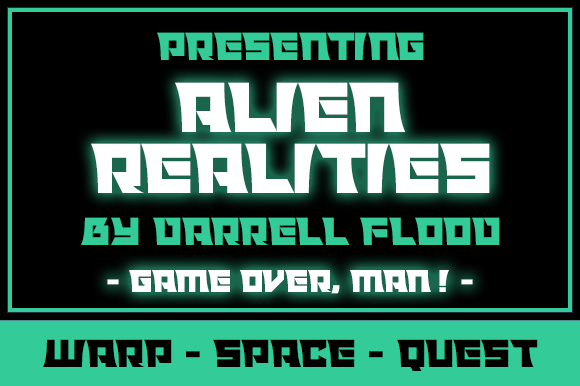
The Birth of a Cosmic Typography
Have you ever found yourself in the middle of a creative frenzy, surrounded by scattered papers, empty coffee cups, and a laptop screen filled with endless possibilities? It’s that magical moment when ideas start flowing, and your imagination runs wild. For designers, this feeling is a familiar companion, and the right tools can make all the difference.
Enter the Alien Realities Font, a bold and chunky charactered display font that’s out of this world. Its futuristic yet simple style makes it the perfect companion for any creative project. Whether you’re designing a sci-fi novel, a futuristic website, or a poster for a space-themed event, the Alien Realities Font is sure to elevate your design game.
This versatile font is a valuable asset for designers, offering a unique and eye-catching visual identity that’s sure to leave a lasting impression. With its bold and chunky style, the Alien Realities Font is perfect for making a statement and adding a touch of extraterrestrial flair to your designs.
- Unique Characteristics: This font features an otherworldly, futuristic design, with a blend of organic and geometric elements that create a truly alien look.
Alien Realities Font Review
Overall, I think the Alien Realities font has some unique qualities that set it apart from other fonts, but it also has some limitations that might make it less suitable for certain projects.
- Its extraterrestrial aesthetic is perfect for sci-fi and futuristic themes, adding a sense of otherworldliness to any project.
- The font’s irregularities and imperfections give it a quirky, handmade feel that’s hard to replicate with more traditional fonts.
- The font’s bold, eye-catching style is great for headlines and titles, grabbing the user’s attention and drawing them in.
- The font’s irregularities can make it difficult to read, especially in larger blocks of text or for users with vision impairments.
- The font’s extraterrestrial aesthetic might not be suitable for projects that require a more serious or professional tone.
- The font’s bold style can be overwhelming if used excessively, so it’s essential to balance it with more subtle typography.
In conclusion, the Alien Realities font is a great choice for projects that require a unique, otherworldly aesthetic. However, it’s essential to consider its limitations and use it judiciously to avoid overwhelming the user. With careful planning and balance, this font can add a touch of extraterrestrial charm to any project.
The Alien Realities font is ideal for sci-fi and futuristic designs. Use it to create a sense of otherworldliness and add a touch of extraterrestrial flair to your designs. Some common use cases include:
- Sci-fi movie posters
- Futuristic logo designs
- Space-themed infographics